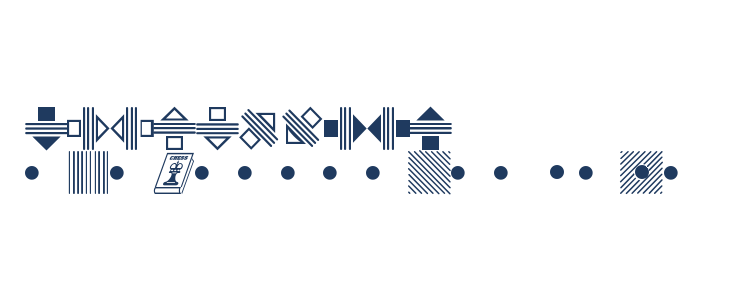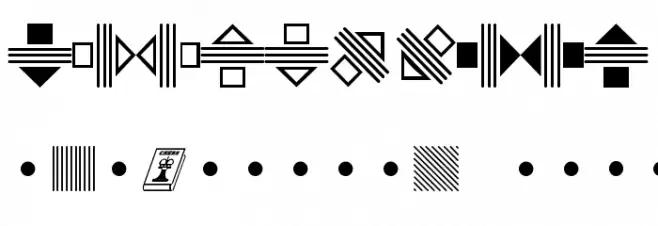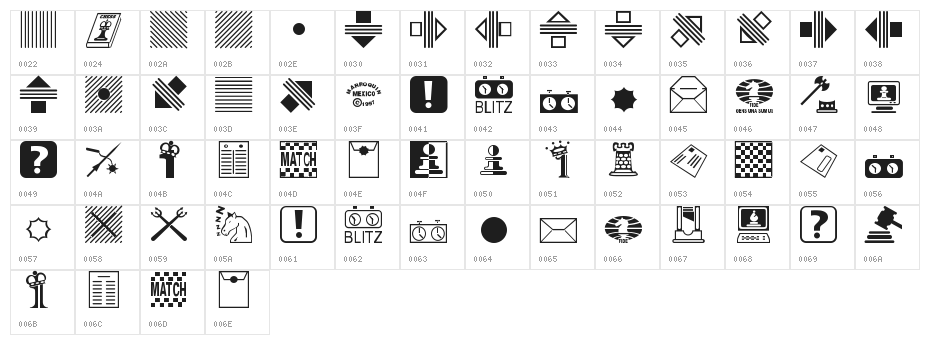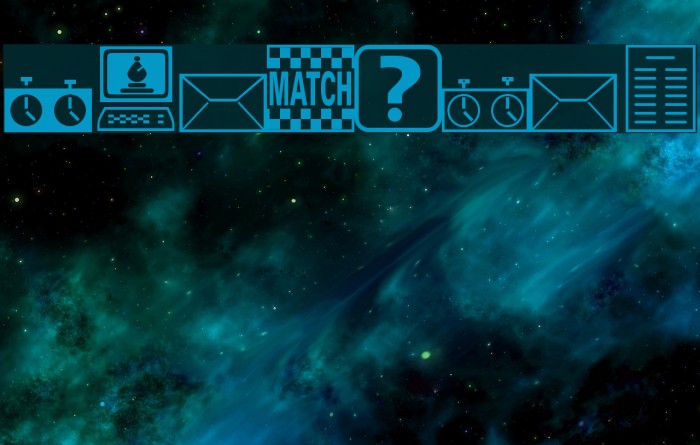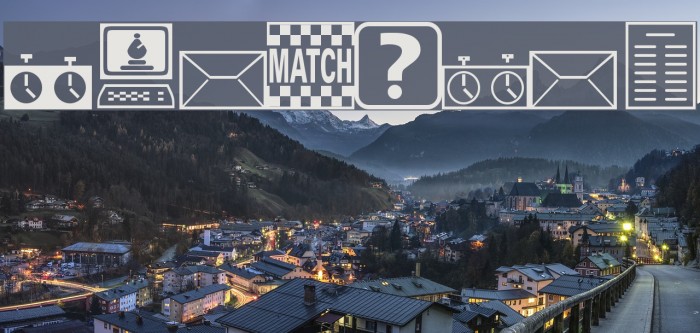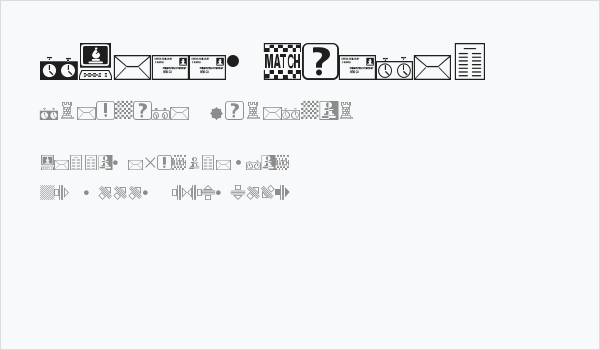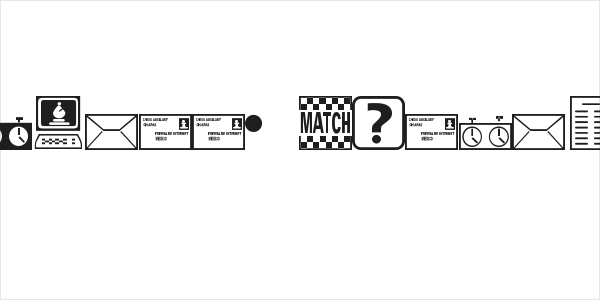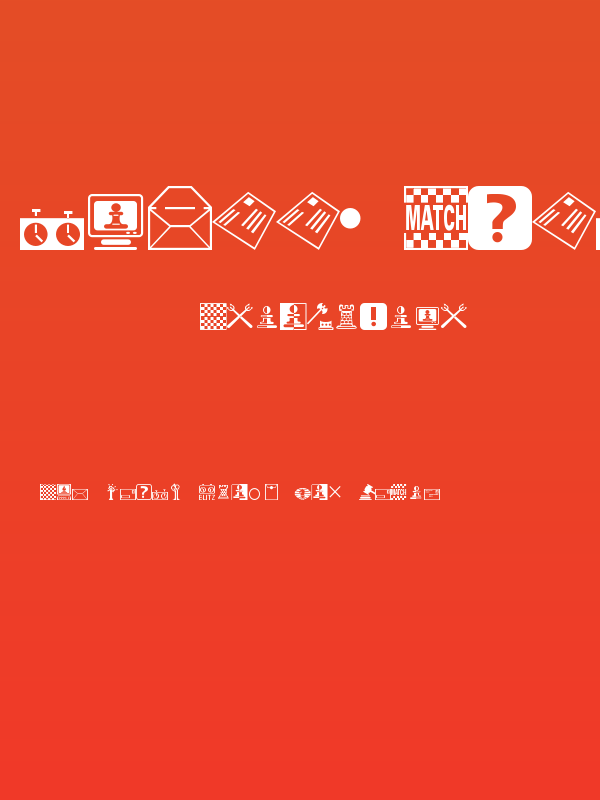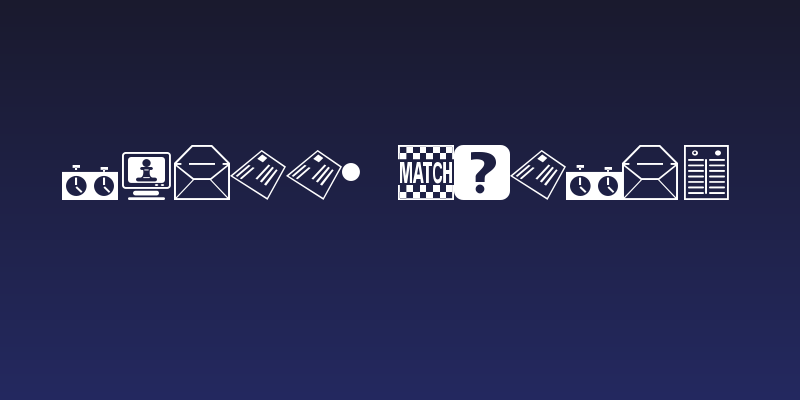
Chess-Miscel Font
A decorative dingbat font featuring a variety of chess-themed icons, including chess pieces, clocks, boards, trophies, and related symbols, as well as geometric dividers and dot patterns. The glyphs are bold, highly stylized, and designed for visual impact rather than text readability.
Overall StyleDecorative, Thematic, Modern
Use CaseIcons, Logos, Decorative elements, Themed graphics
Proposed ProjectsChess event posters, tournament materials, educational resources, themed invitations, infographics, and decorative dividers.